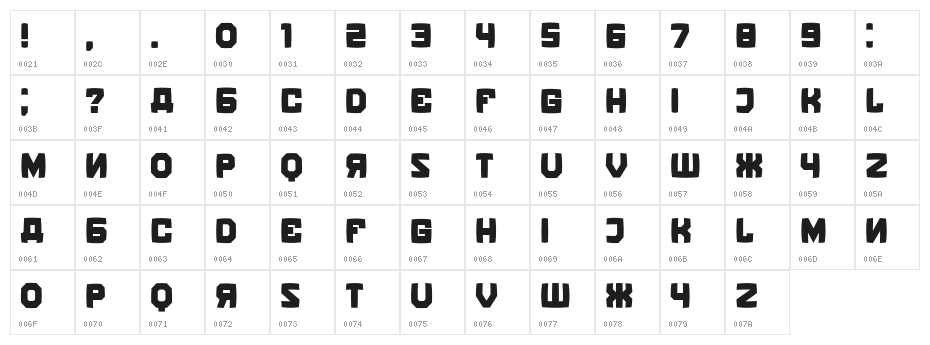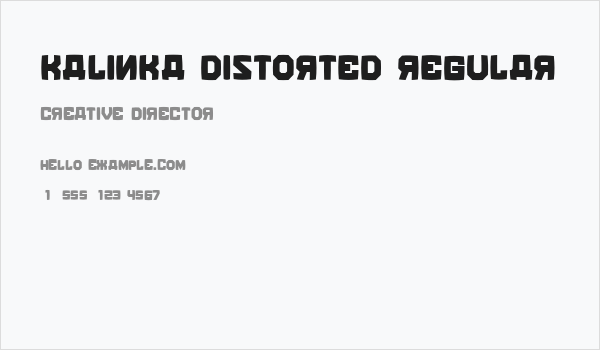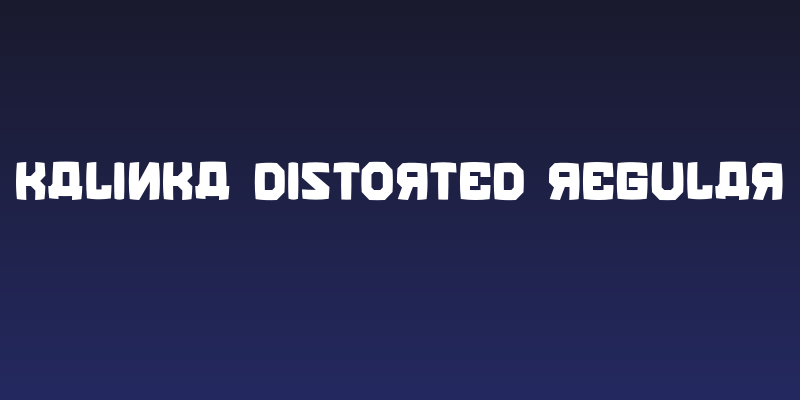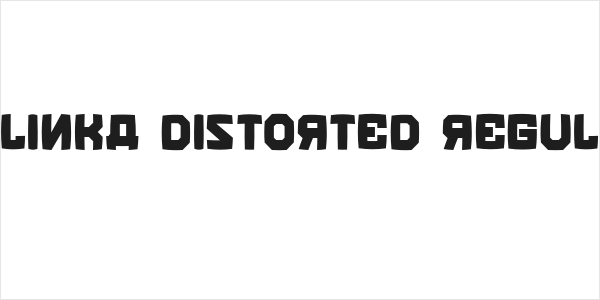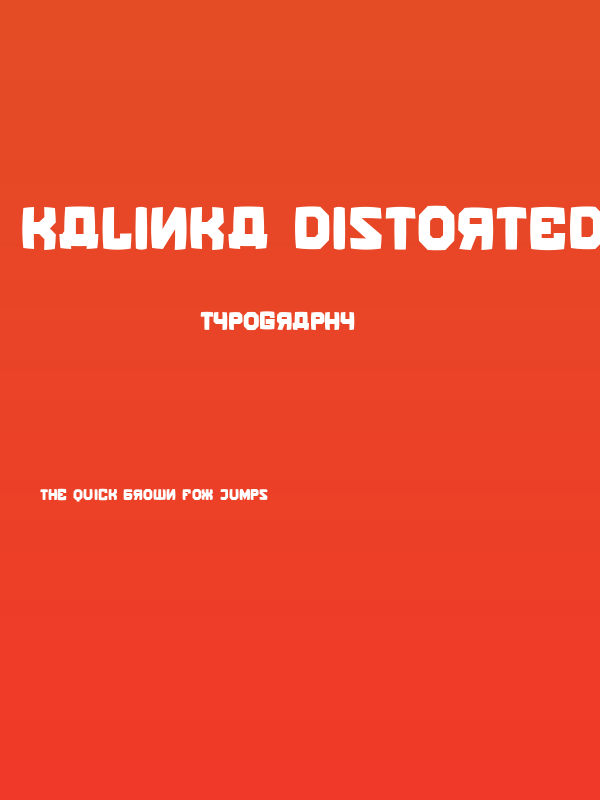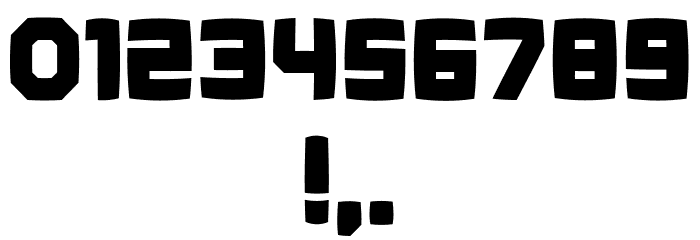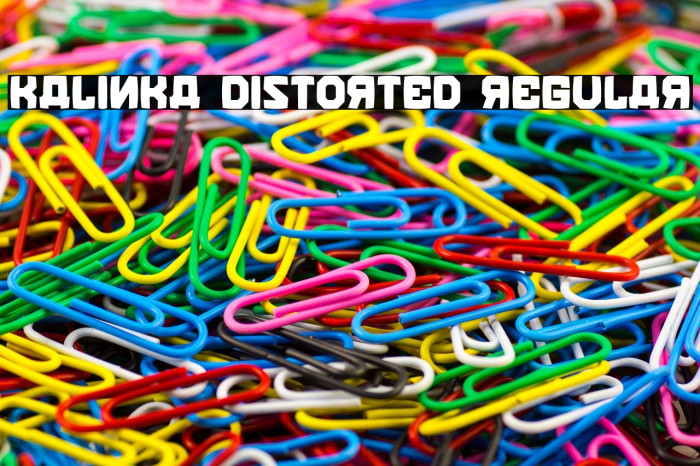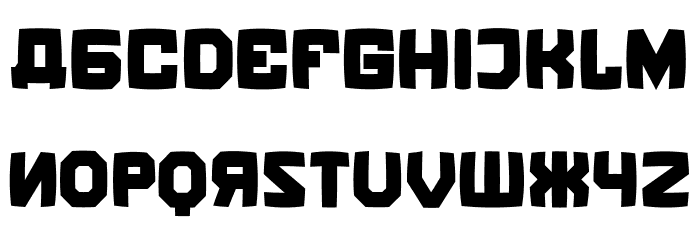
Kalinka Distorted Regular Font
Kalinka Distorted Regular Description
This font features a bold and distorted style, characterized by its thick, blocky letters with uneven edges that create a dynamic and eye-catching appearance. The uppercase and lowercase letters maintain a consistent weight, giving the font a cohesive look. The numerals and special characters follow the same design principles, ensuring uniformity across all glyphs. Its unique style makes it suitable for projects that require a strong visual impact.
| Proposed Projects | Ideal for poster designs, album covers, video game graphics, and branding that requires a bold statement. |